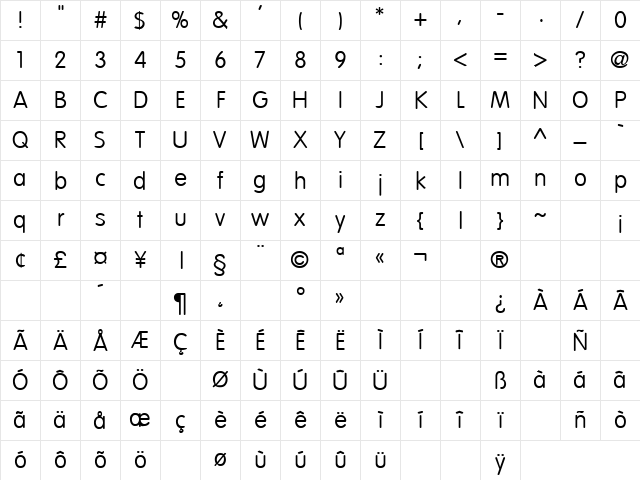
Lemons 17 Regular
Complete Lemons 17 Regular glyph index. Displaying only characters natively supported by Lemons 17 Regular font.
Design Context for Lemons 17
Lemons 17 is a composed and adaptable typeface that performs quietly and consistently across a wide range of design contexts.